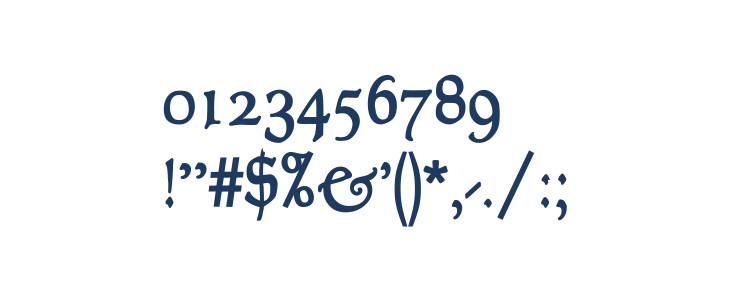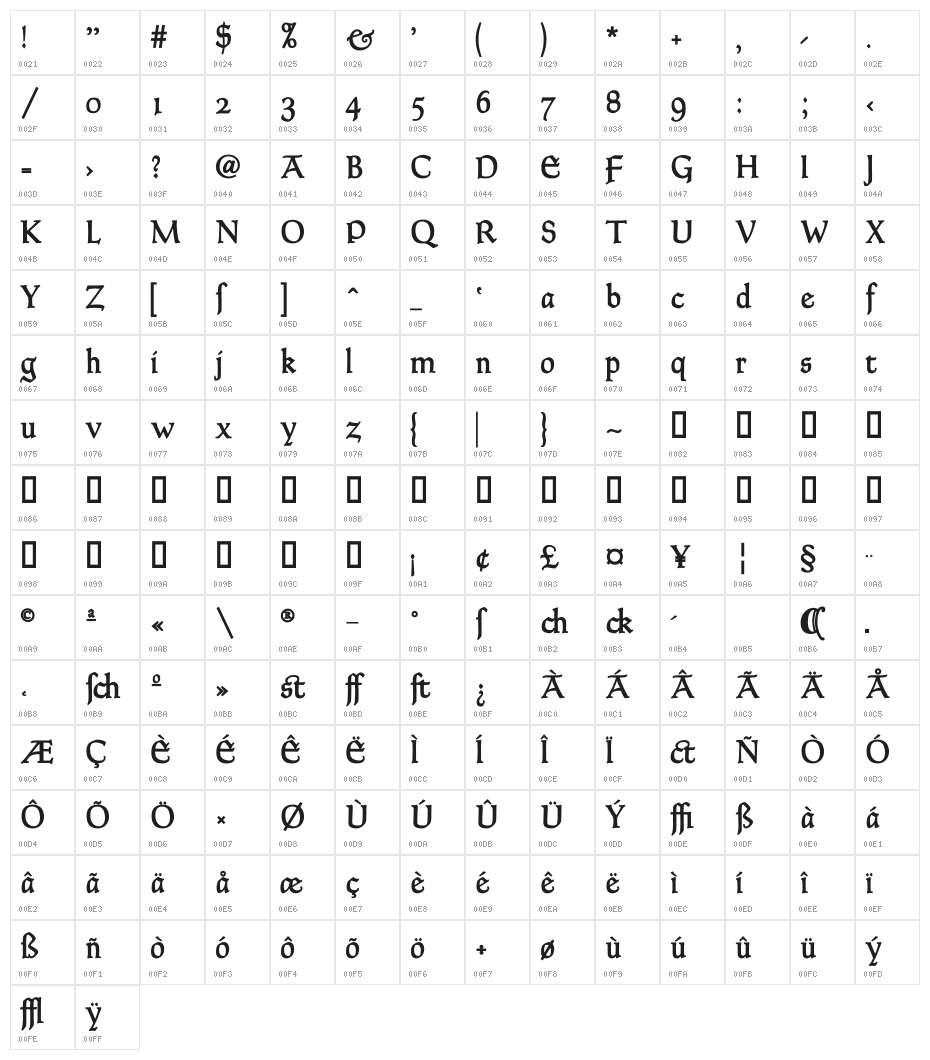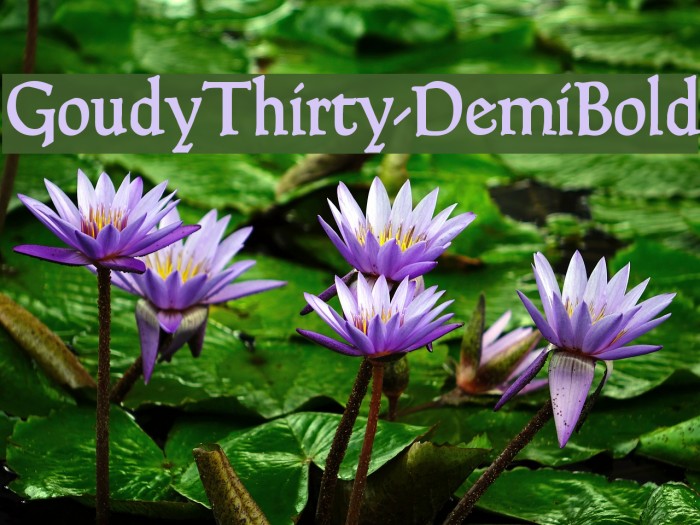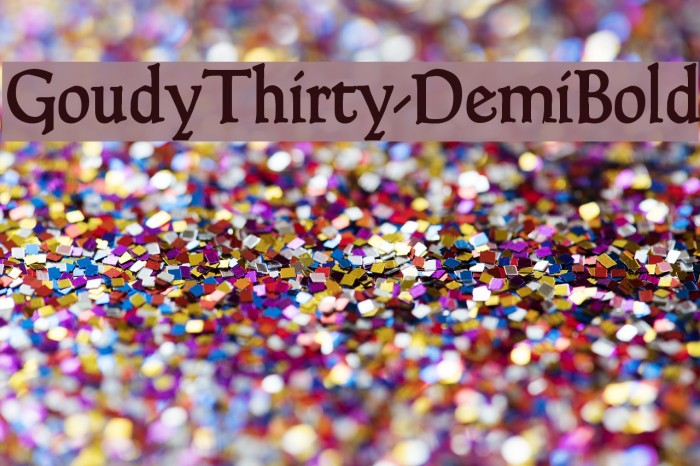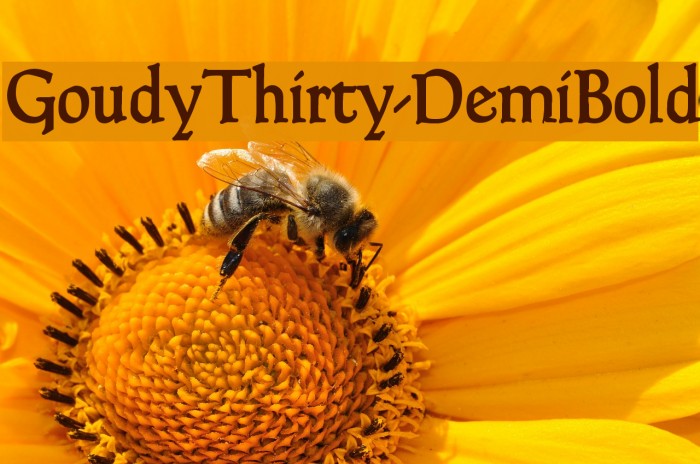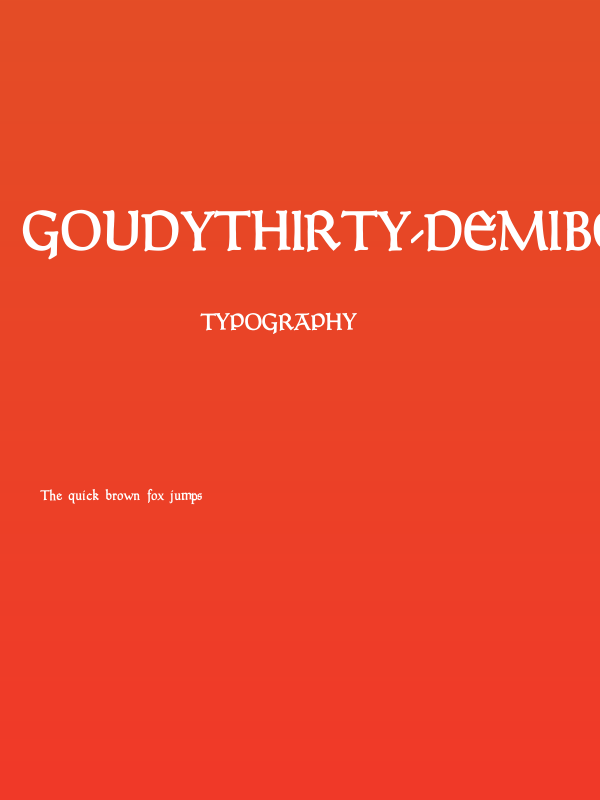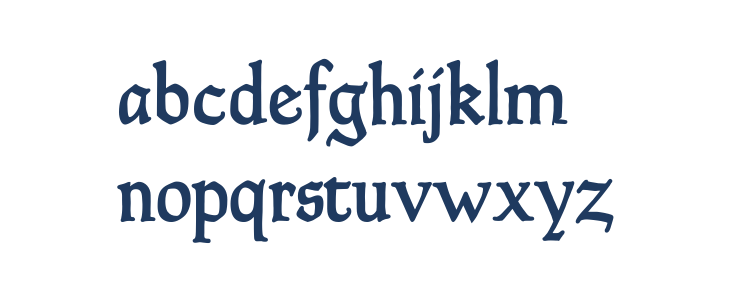
GoudyThirty-DemiBold Font
GoudyThirty-DemiBold Description
This font features a classic and elegant design with a touch of vintage charm. The uppercase letters exhibit a strong presence with slightly flared serifs, giving them a distinctive and sophisticated look. The lowercase letters maintain a consistent style, with smooth curves and balanced proportions. Numbers are clear and legible, matching the overall aesthetic. Special characters are thoughtfully designed, integrating seamlessly with the rest of the typeface. The font's overall appearance is both traditional and timeless, making it suitable for a variety of applications.
| Use Case | Headlines, Logos, Editorial design |
| Proposed Projects | Ideal for book covers, formal invitations, branding, and editorial design. |